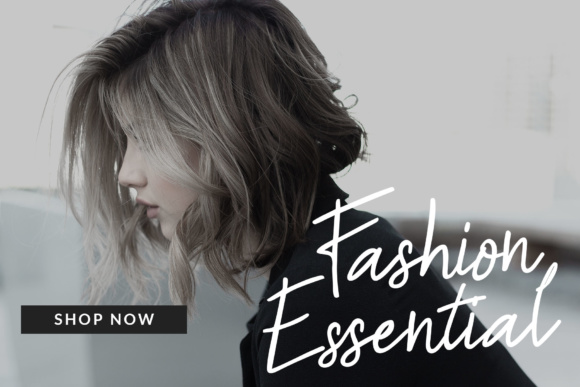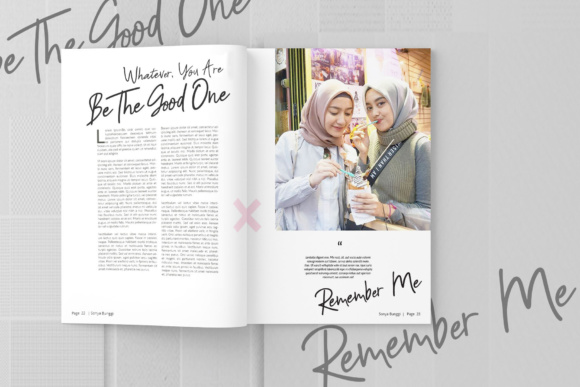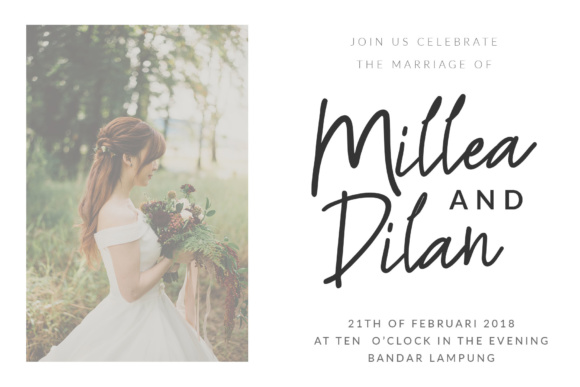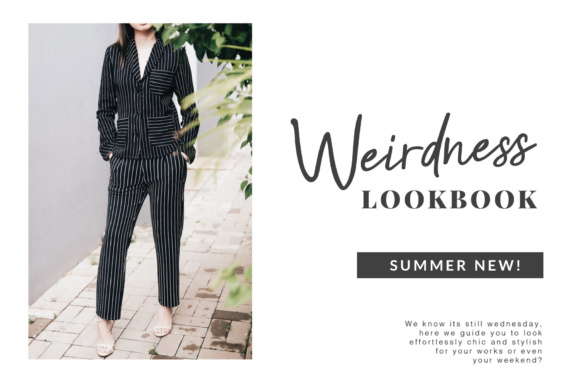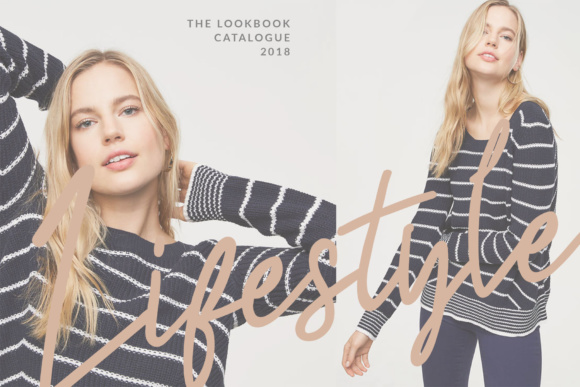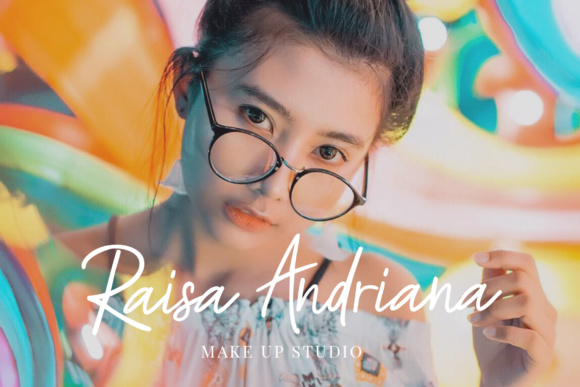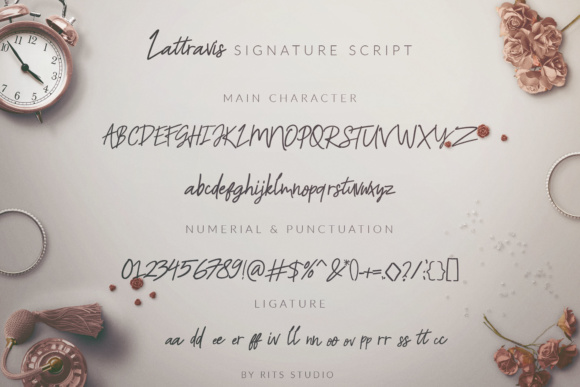
Lattravis Script Font
About Lattravis Script Font
Lattravis an unique handwritten font. It has an unique flow and a beautiful signature style which makes it perfect for quotes, logos, labels and much more!